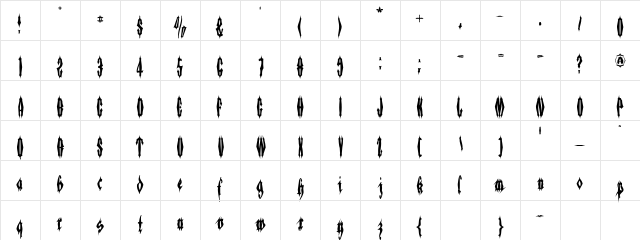
Applesauce05 Regular
Design Context for Applesauce05 Typeface
Applesauce05 is a composed and adaptable typeface that performs quietly and consistently across a wide range of design contexts.